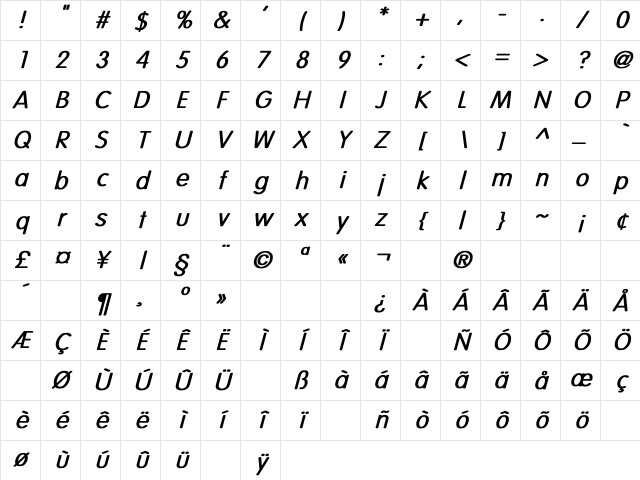
Vogue-Normal Bold Italic Regular Free Font
Vogue-Normal Bold Italic Regular
Vogue-Normal Bold Italic Family
Vogue-Normal Bold Italic Regular
Complete Vogue-Normal Bold Italic Regular glyph index. Displaying only characters natively supported by Vogue-Normal Bold Italic Regular font.
Design Context for Vogue-Normal Bold Italic
Vogue-Normal Bold Italic is a composed and adaptable typeface that performs quietly and consistently across a wide range of design contexts. The slanted form adds forward momentum and visual energy. Its bold stroke weight gives it real presence on the page.